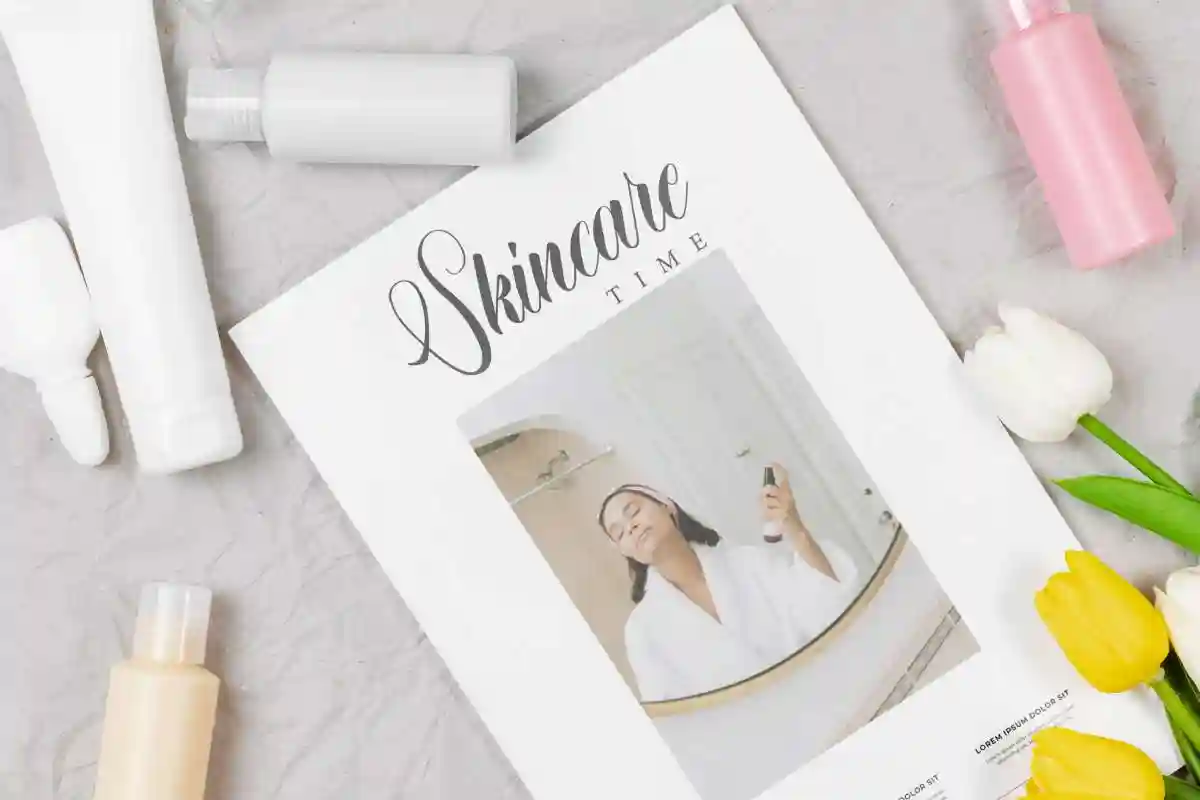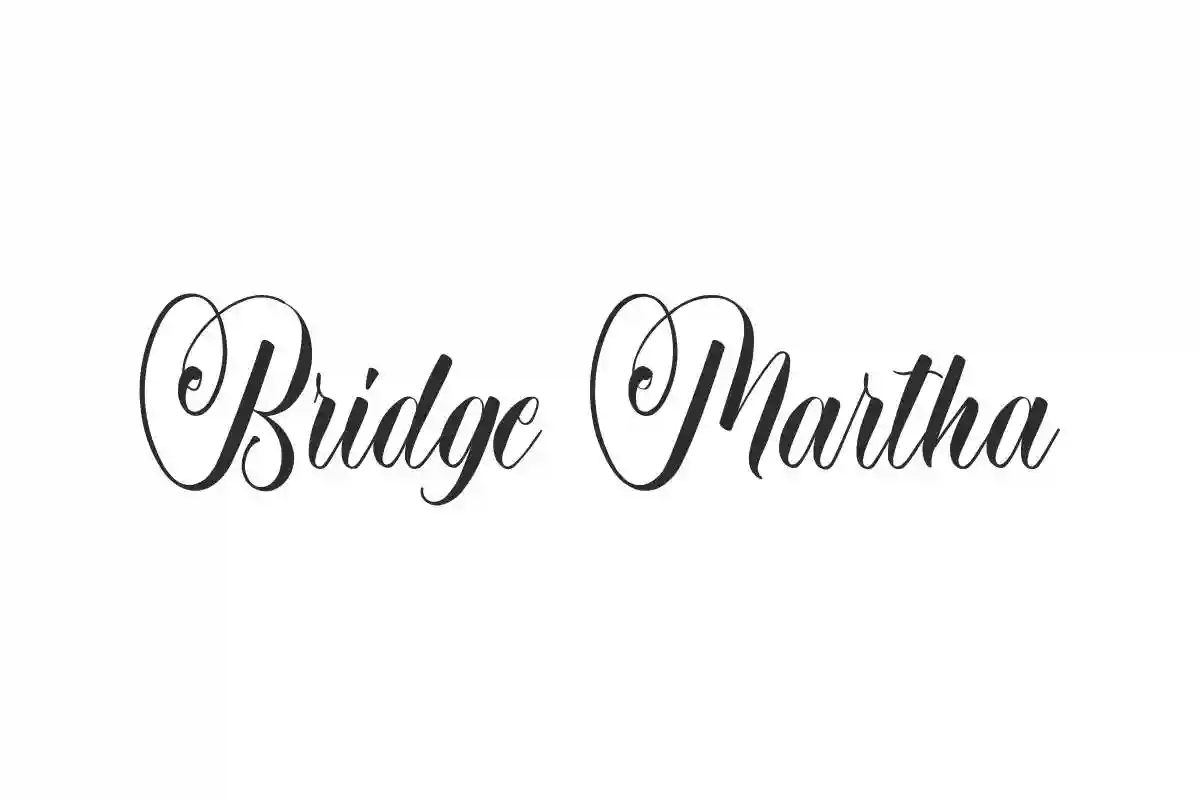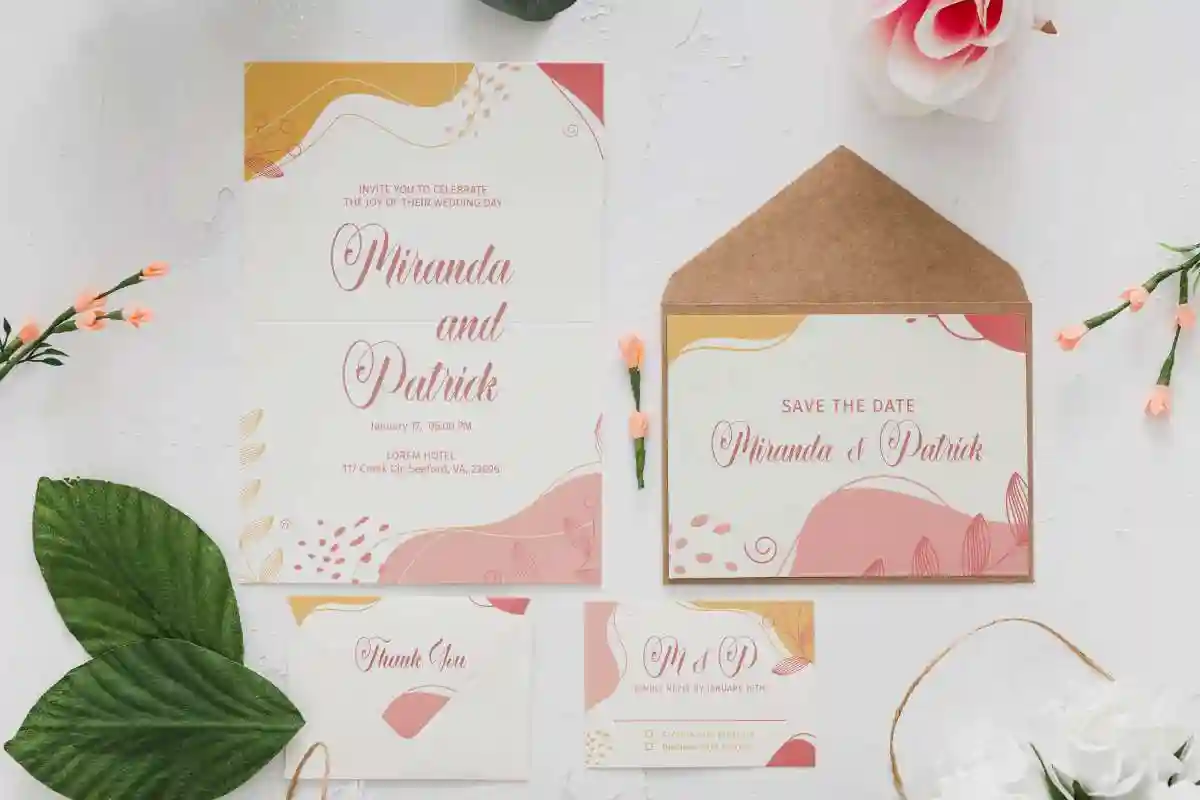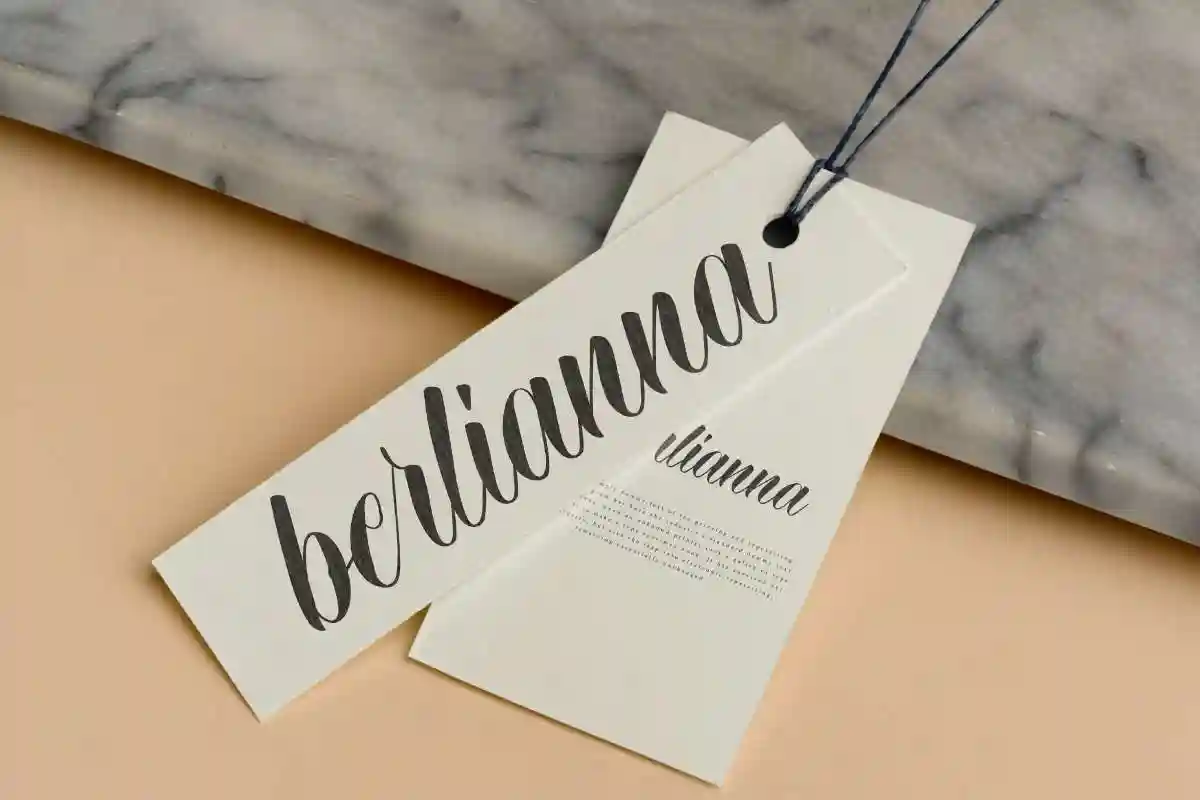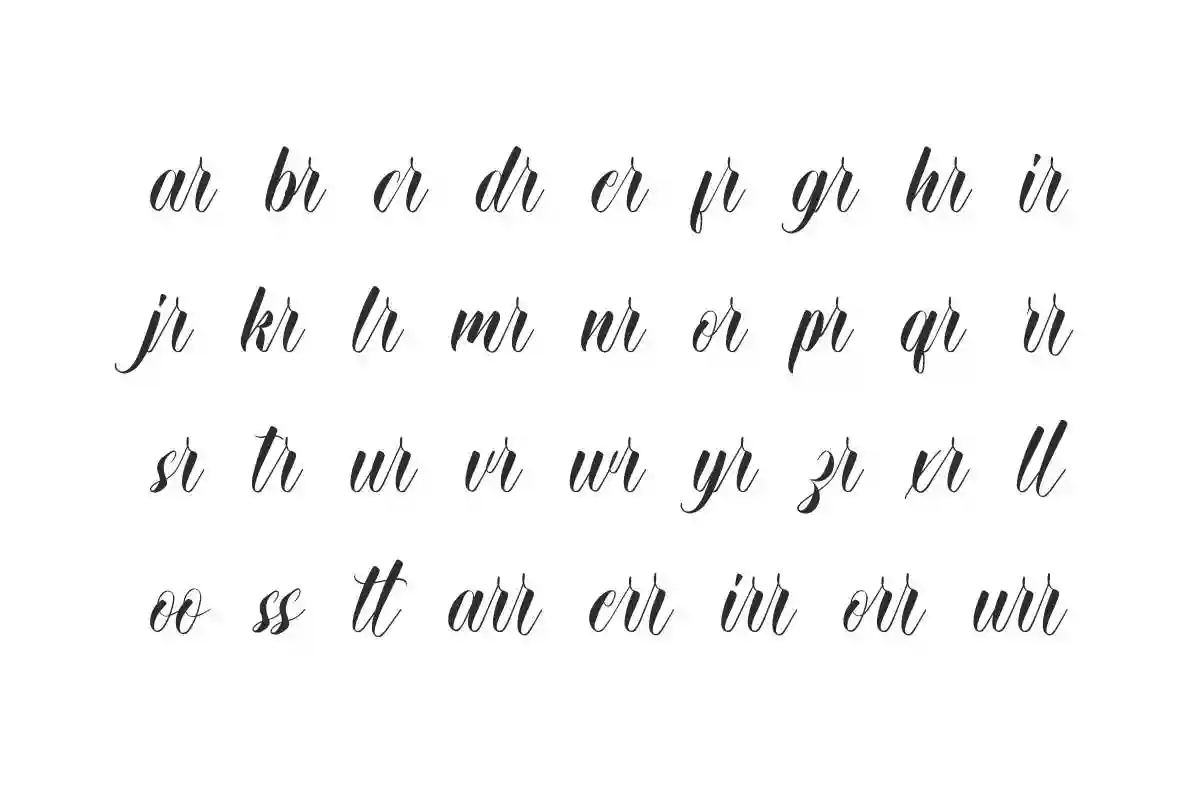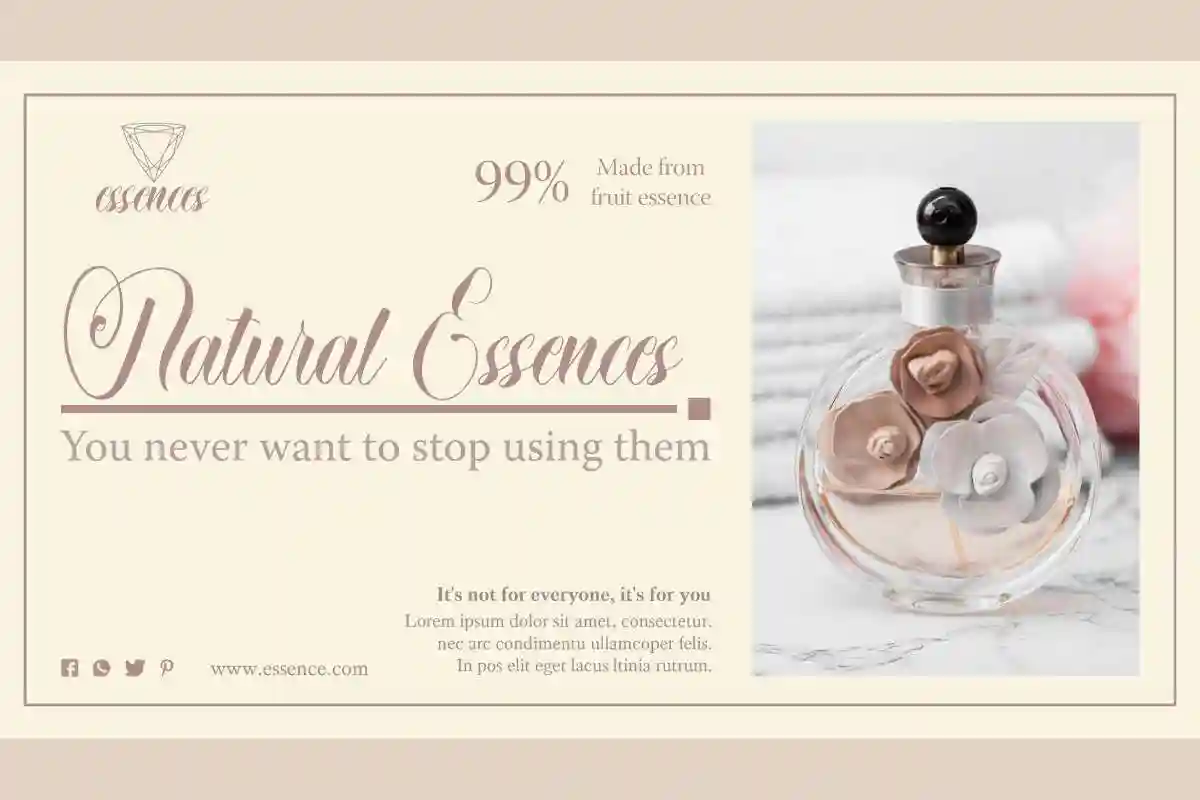
Bridge Martha Font
Bridge Martha Font is a flawless calligraphy script font, created by NihStudio. This beautiful font will add stylish touch to any of your creative projects including brandings, logo, business card design, cosmetic brand, etc.
Bridge Martha Font is a stylish calligraphy style font with a beautiful curl brush. It exudes true elegance and easy to read that will add to the beauty of your designs, such as apps, brand logo, catalog, cover, invitation, label, quotes, stationery, title, website, and much more!
Bridge Martha Font comes with a full set of Uppercase and Lowercase Basic Characters, Number, Punctuation, Symbol. This font also comes with lots of ligature characters making it a perfect binding. Use this for your business industry such as, artist, boutique, event organizer, fashion, florist, perfume, publishing, salon, spa, writer, etc.